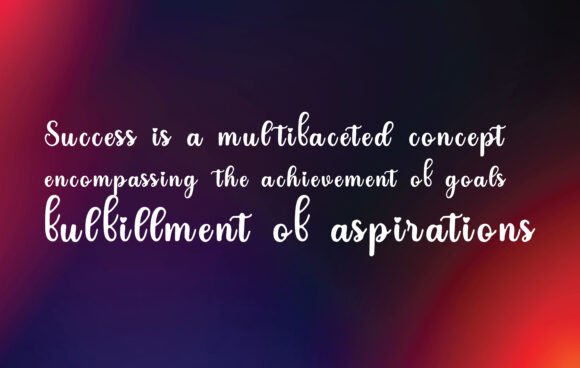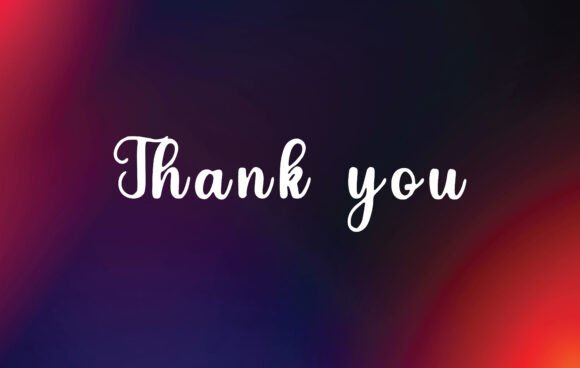
The Magic of Annaliese Font: Elevate Your Designs with this Beautiful Handwritten Font
I’ll never forget the time I was working on a branding project for a boutique client, and I was struggling to find the perfect font to capture the essence of her elegant and playful brand. The client had a clear vision of what she wanted, but I was having a hard time bringing it to life – that was until I stumbled upon Annaliese Font. ✨ This lovely and beautiful handwritten font has been a game-changer for me, and I’m excited to share its magic with you.
An Honest Review of Annaliese Font
- ✨ Elegant and fluid handwriting style that adds a touch of sophistication to any design
- 💫 Perfect for creating eye-catching logos, branding, and quotes
- 🎨 Versatile and works well with a variety of design styles, from modern to vintage
While Annaliese Font is an amazing addition to any design project, there are a few things to keep in mind: 🤔
- ⚠️ Some letters may require manual kerning for optimal spacing
- ⚠️ Limited availability of certain special characters
The Story Behind Annaliese Font
Annaliese Font was designed with the intention of creating a beautiful, handwritten font that would inspire creativity and elegance. The designer aimed to create a font that would be perfect for branding, logos, and quotes, and we’re thrilled to see how it’s being used in the design community! 💫
Q: What is Annaliese Font?
Annaliese Font is a lovely and beautiful handwritten font designed for creative projects, such as branding, logos, and quotes.
Q: Is Annaliese Font suitable for body text?
While Annaliese Font is highly legible, it’s best suited for headlines, titles, and short paragraphs. For longer body text, you may want to consider a more traditional serif or sans-serif font.